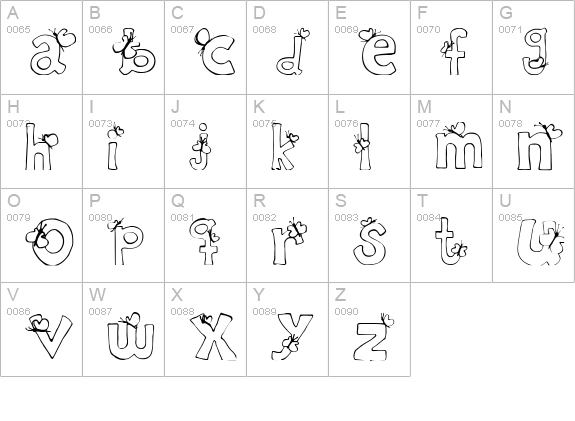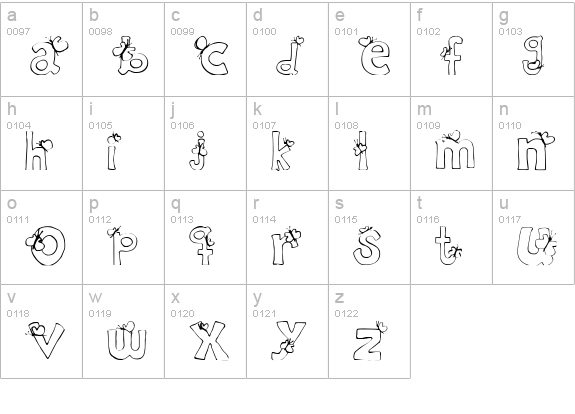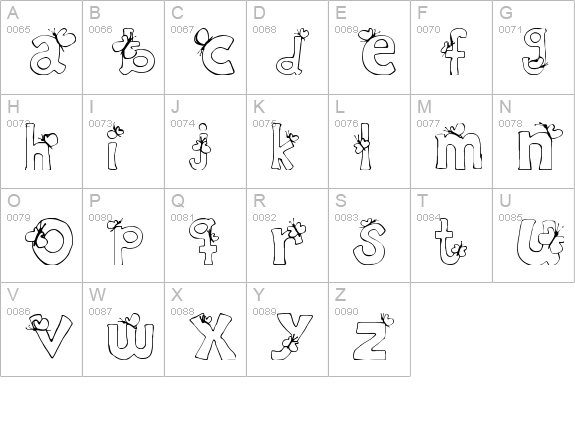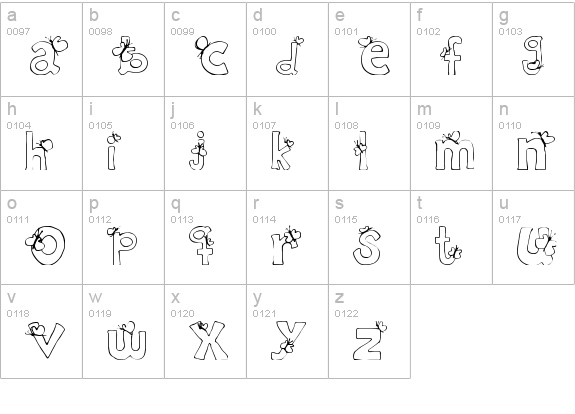
Ryp childC Font Details
Ryp childC font is a charming and playful typeface that is perfect for adding a touch of whimsy to your designs. With its rounded edges and friendly appearance, this font is ideal for creating eye-catching headers, titles, and logos. The Ryp childC font is available for free download at FontsMarket.com, making it easily accessible for all your design projects. Whether you're working on a children's book, a birthday invitation, or a fun social media graphic, this font is sure to bring a smile to anyone who sees it. Add a touch of joy and creativity to your designs with the Ryp childC font today!